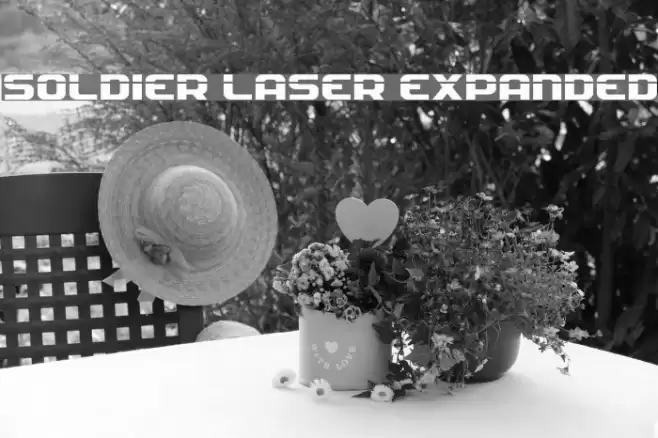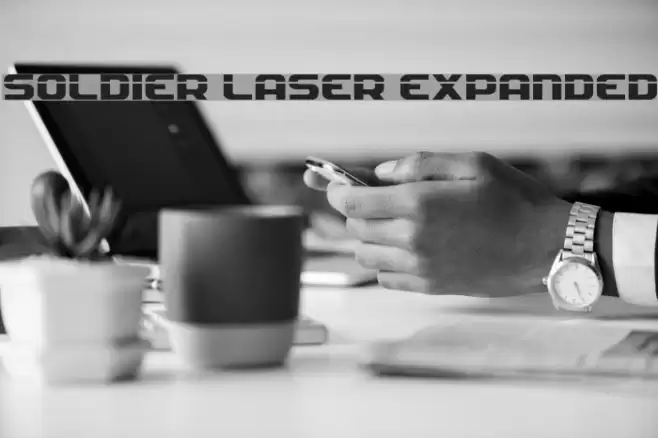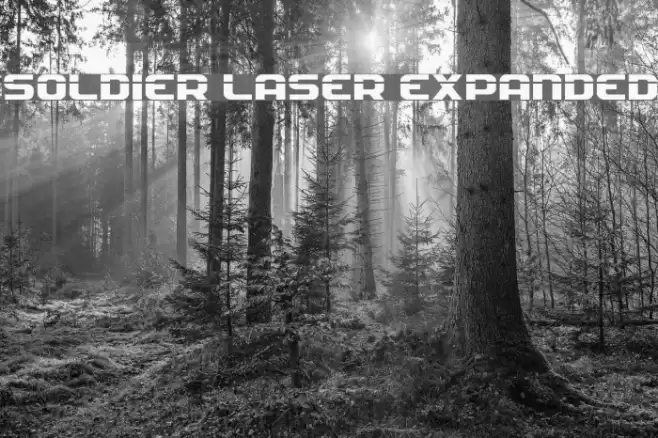
Soldier Laser Expanded Font
Soldier Laser Expanded Description
This font features a bold and futuristic design with a distinctly geometric and angular appearance. The characters are expanded and have a strong presence, making them ideal for attention-grabbing headlines or titles. The use of sharp edges and consistent line thickness gives it a modern, industrial feel. The uppercase and lowercase letters maintain uniformity in style, while the numerals and special characters complement the overall aesthetic. This font is well-suited for projects that require a bold statement, such as sci-fi themes, technology branding, or video game titles.
A bold, futuristic font with geometric and angular design, ideal for headlines from Uncategorized fonts.
- Proposed Projects: Ideal for sci-fi themes, technology branding, video game titles, and futuristic designs.